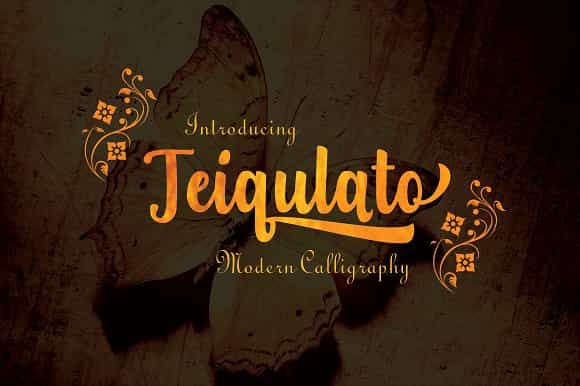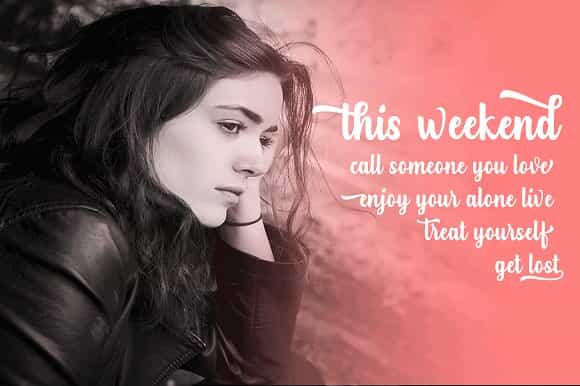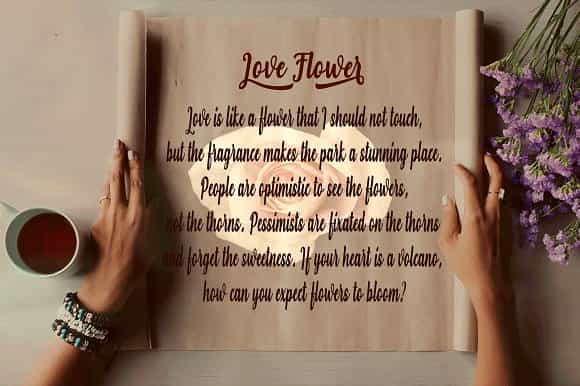
Discover Teiqulato Calligraphy Font, part of the Calligraphy collection—a versatile and unique font perfect for adding a personal touch to your projects. Download it for free and enjoy crafting designs with style, from invitations to social media posts. This font is available exclusively for personal use, giving you the freedom to create without limits. Unlock your creativity with Teiqulato Calligraphy Font today!
Teiqulato is a new calligraphy script style, I think of the beauty of the rapid and beautiful writing! Teiqulato is perfect to be used with a huge range of projects, from heat designs such as social media posts, print on demand illustrations, invitation cards, product packaging and additional.